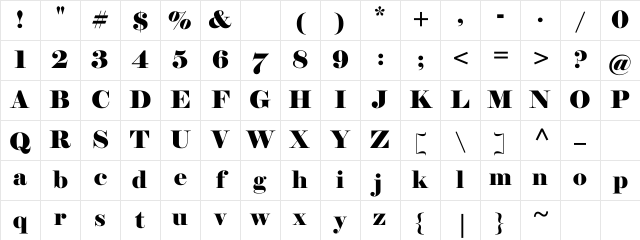
Overture Regular
Design Context for Overture
Overture is a composed and adaptable typeface that performs quietly and consistently across a wide range of design contexts.